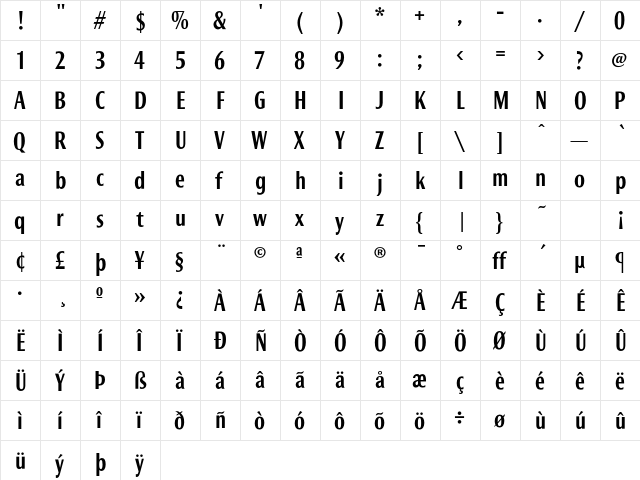
Bureau Roxy FB Medium Regular Font Preview
Bureau Roxy FB Medium Regular
| Foundry | The Font Bureau, Inc |
| Copyright | Copr.1989, 1990, 1991, The Font Bureau, Inc. John Downer, designer. |
Design Context for Bureau Roxy FB Medium Typeface
Bureau Roxy FB Medium is a composed and adaptable typeface that performs quietly and consistently across a wide range of design contexts.